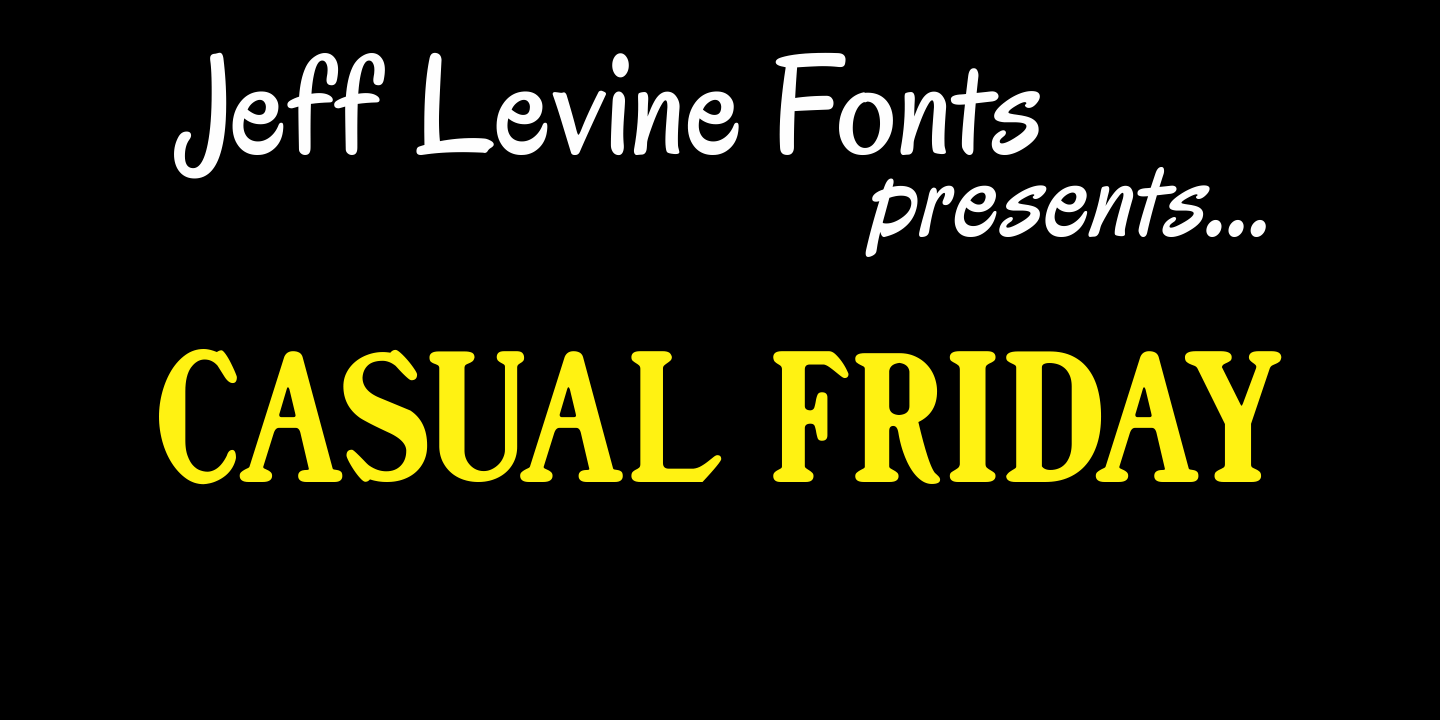
Casual Friday
An old rubber stamp printing set called the Aristocrat Sign Marker was the inspiration for this font from Jeff Levine. The letter shapes are truly reminiscent of the 1920s and early 1930s with their casual playfulness, hence the font's name of Casual Friday JNL. To add a more nostalgic touch, the characters show slight imperfection of shape, as if hand-lettered.